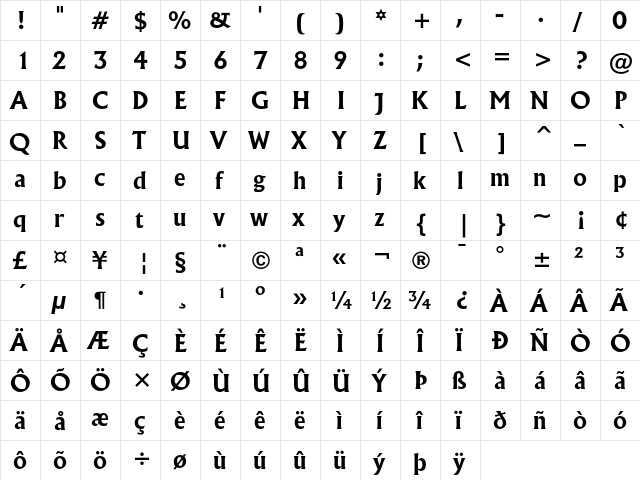
Flareserif 821 Bold
Design Context for Flareserif 821 Typeface
Flareserif 821 brings classic typographic sensibility to the table — its serifs and measured letterforms reflect centuries of print heritage. The heavy weight commands attention and anchors typographic hierarchies.
Pro Tip: Use Flareserif 821 for editorial body copy and considered headline work. Pair with a neutral sans for UI elements or captions to create a classic hierarchy.